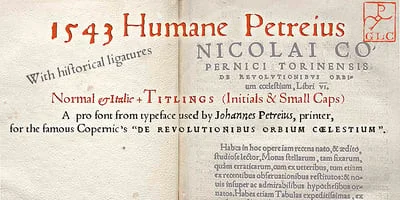
1543 Humane Petreius Font
This font is exciting because it honors the revolutionary impact of Johannes Petreius, the renowned Nuremberg printer who published Copernicus's groundbreaking "De revolutionibus orbium coelestium" in 1543, featuring elegantly scholarly letterforms that embody the same humanistic elegance and intellectual courage found in the Renaissance printing workshops where revolutionary ideas about astronomy, mathematics, and human knowledge were first shared with the world through the transformative power of movable type and scholarly publishing. The masterfully crafted character design reflects both the technical precision of 16th-century printing and the humanistic ideals that drove Renaissance scholars to challenge conventional wisdom and expand human understanding, creating typography that feels both historically authentic and intellectually inspiring. Each letter carries the weight of scientific revolution and the dignity of humanistic scholarship that transformed ordinary text into vehicles for ideas that changed the world.
The 1543 Humane Petreius Font family includes regular weight with complete character sets featuring Renaissance-era numerals, scholarly punctuation marks, and decorative elements inspired by 16th-century printing, astronomical symbols, humanist manuscripts, and classical scholarly traditions. Advanced versions may offer additional stylistic variants with enhanced historical effects, alternate characters that reflect authentic Renaissance printing practices, and ornamental elements that celebrate the rich heritage of humanistic scholarship and scientific revolution.
Whether you're developing Renaissance educational materials, creating scholarly historical publications, or designing authentic 16th-century reproductions, 1543 Humane Petreius Font provides the scholarly authority and historical authenticity your project needs to honor the revolutionary printing traditions that spread Renaissance humanism and scientific knowledge throughout Europe. This typeface transforms ordinary text into scholarly declarations that carry the intellectual weight and historical significance of the ideas that launched the Scientific Revolution. The font's humanistic character makes it essential for institutions and publications that celebrate Renaissance scholarship and scientific history. Renaissance scholars and academic historians will appreciate how this font brings authentic Petreius printing tradition to their work with its genuinely scholarly and historically revolutionary character that honors the birth of modern scientific publishing.